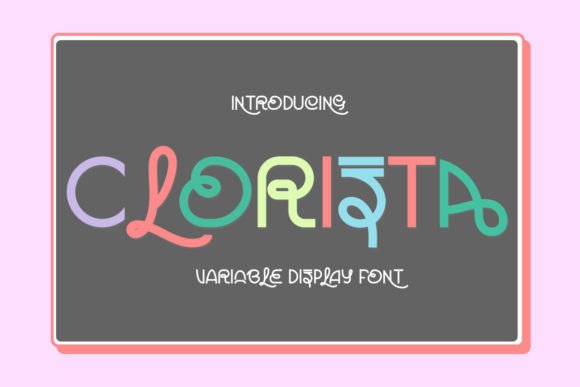
Embark on a typographic journey with Clorista, a display font that exudes charm and delight. Its playful and quirky characters will bring a smile to your face as you witness them transform your designs into masterpieces of visual joy.
Clorista's unique ligatures and alternate characters allow you to unleash your creativity and add a touch of whimsy to your projects. Say goodbye to ordinary fonts and embrace the extraordinary with Clorista.
Picture this: you're designing a website or an app, and you want to create a captivating user experience. Clorista is your perfect choice. Its bold and vibrant characters will guide users through your content with effortless ease, leaving a lasting impression that keeps them coming back for more.
From eye-catching headlines to playful call-to-actions, Clorista has got you covered. It's the perfect font to make your words sing and dance off the page.
So why wait? Dive into the world of Clorista today and let your designs blossom with newfound life. Experience the magic of typography like never before and leave your audience spellbound.
Clorista is more than just a font; it's an invitation to a world where imagination reigns supreme. Download Clorista today, and let your creativity take center stage.